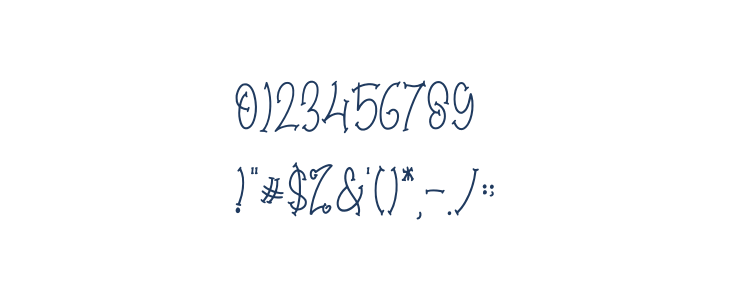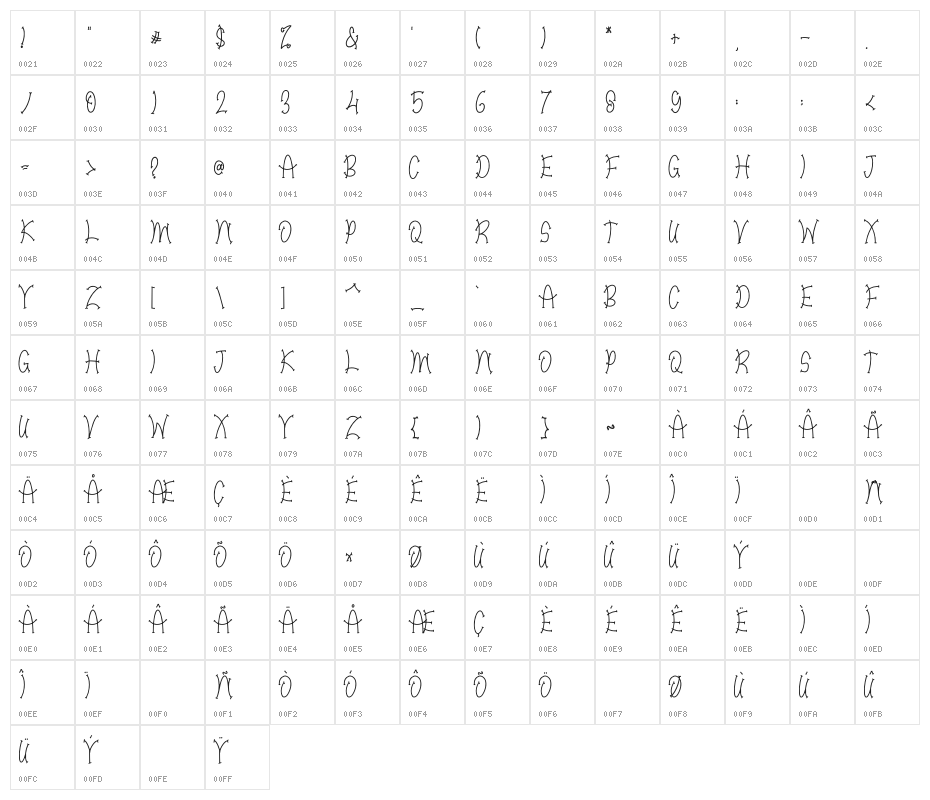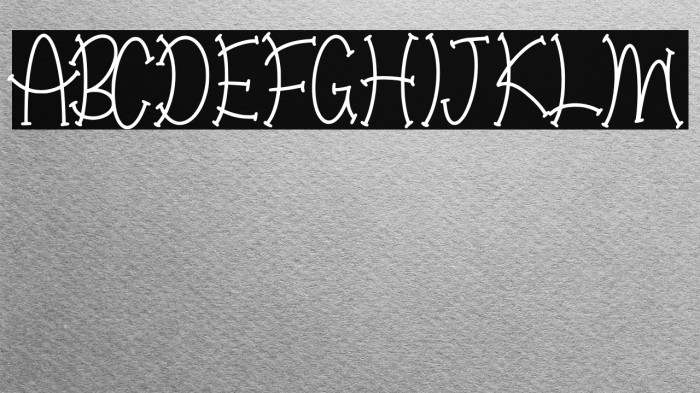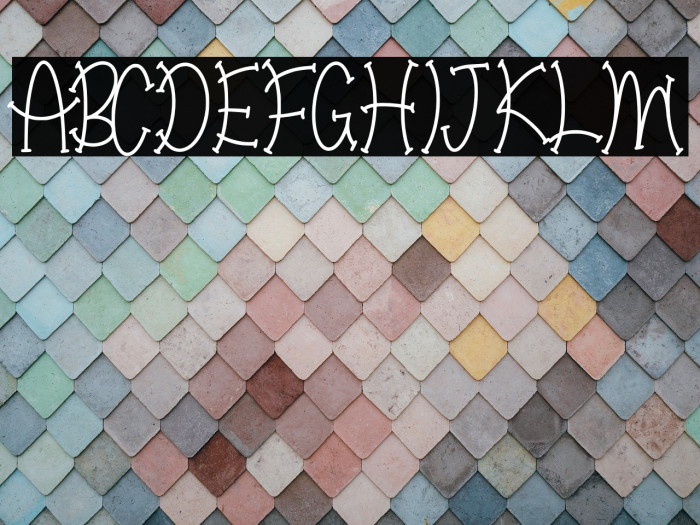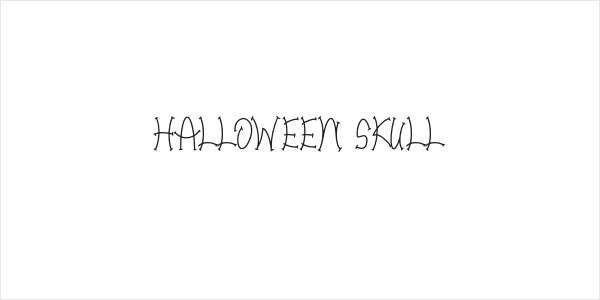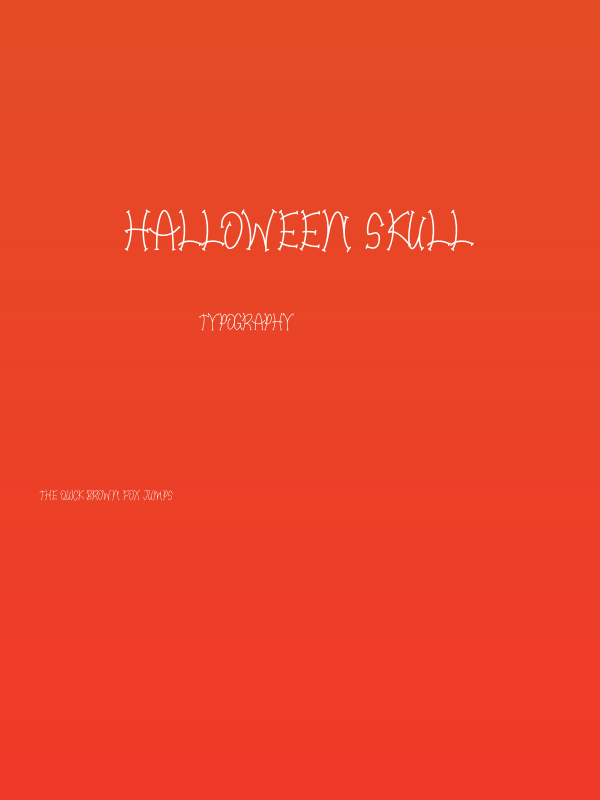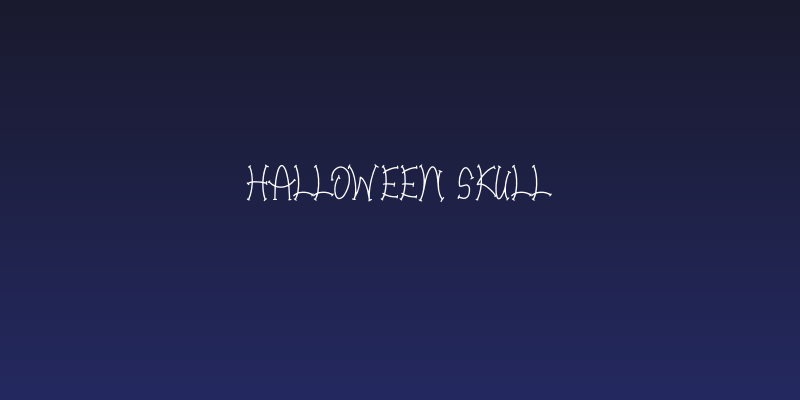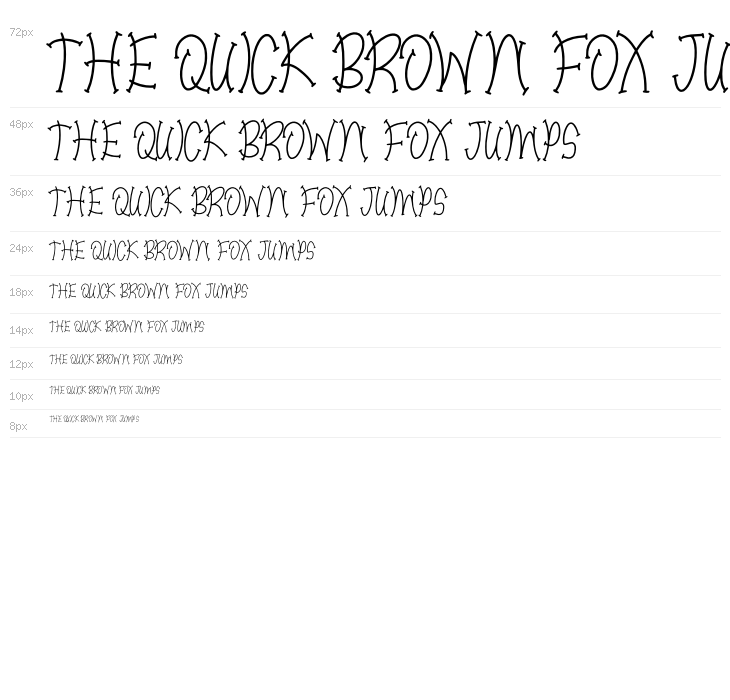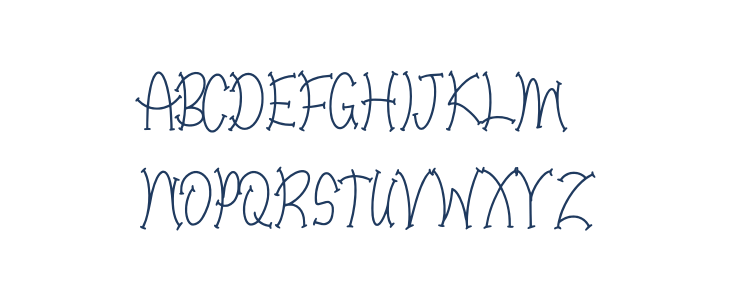
Halloween Skull Font
Halloween Skull Description
This font features a unique and playful design with a spooky twist, perfect for Halloween-themed projects. The characters are crafted with a skeletal motif, where each letter is composed of bone-like structures, giving it a distinctive and eerie appearance. The uppercase and lowercase letters maintain a consistent style, with elongated strokes and sharp angles that mimic the look of bones. The numbers and special characters follow the same theme, ensuring a cohesive look across all text elements. This font is ideal for creating eye-catching headlines, posters, and invitations that require a touch of the macabre.